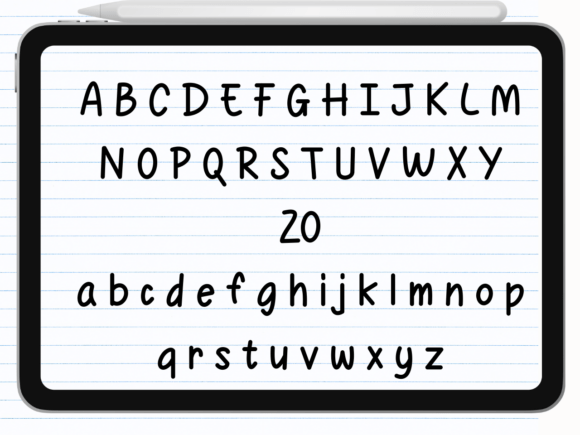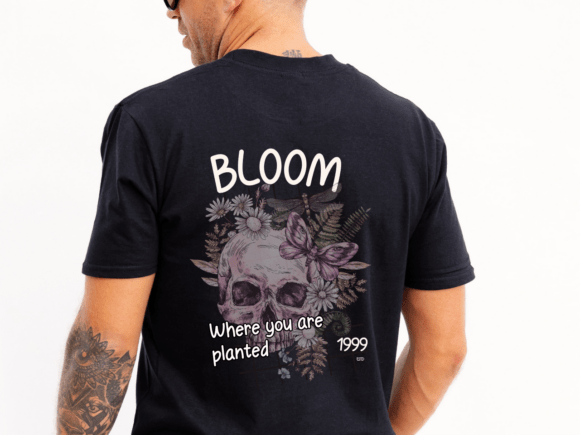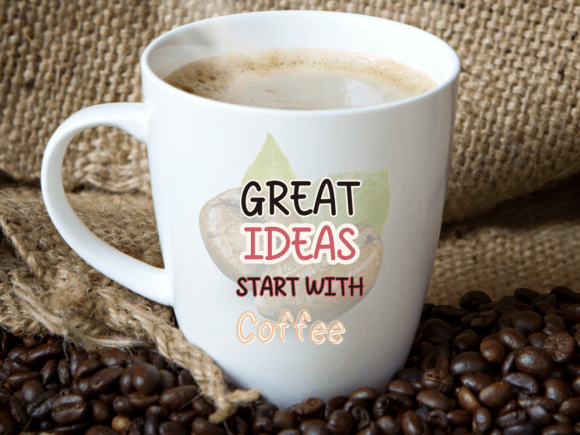
Introduction to Naomie Font
Remember that moment when you received a handwritten note from a friend, and it made your day? The way the scribbled letters seemed to dance across the page, full of personality and warmth? That’s exactly the feeling you get when working with the Naomie Font. This charming handwritten font is designed to capture the essence of friendly, handwritten notes, making it perfect for creative projects that require a touch of personality.
As a designer, you’re always on the lookout for design resources that can add a unique touch to your work. The Naomie Font is a high-quality, free download that offers a transparent background, making it easy to use in both digital and print designs. Its relaxed letterforms and smooth strokes ensure clean readability, while its playful nature makes it a great choice for branding, social media graphics, and educational materials.
Key Features of Naomie Font
- High-quality design resource ideal for creative projects, offering a unique and elegant touch.
- Naomie Font is designed to be highly versatile, suitable for use in a variety of creative projects, from logos to typography.
- Its clean and modern design makes it an excellent choice for designers looking for a high-quality, free design resource.
Honest Review: Naomie Font
As a designer, I’m always on the lookout for high-quality design resources to enhance my creative projects. Recently, I came across the Naomie Font, which caught my attention with its unique and elegant style. In this review, I’ll share my honest thoughts on this font, highlighting its strengths and limitations.
- High-quality design: The Naomie Font is beautifully crafted, with clean lines and a sophisticated feel.
- Transparency: The font offers a transparent background option, making it easy to use in various design scenarios.
- Limited character set: The font has a limited character set, which may not be suitable for projects requiring a wide range of characters.
- Not suitable for bold text: The font’s design makes it less suitable for bold or large text, where its elegance may get lost.
Overall, I’m impressed with the Naomie Font’s unique style and high-quality design. While it has some limitations, it’s still a valuable resource for designers looking to add a touch of elegance to their creative projects.
Introduction to Naomie Font
Naomie Font is a high-quality design resource that can elevate your creative project with its unique style. This versatile font is available for free download and features a transparent background, making it perfect for a variety of applications.